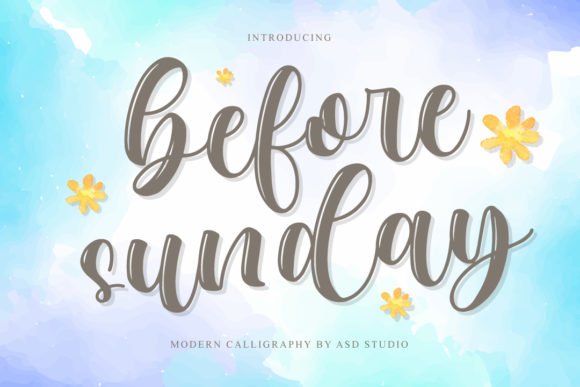
The Timeless Charm of Before Sunday Font
Have you ever stumbled upon a handwritten note from a loved one, and suddenly, you’re transported to a world of memories and emotions? That’s the magic of handwritten fonts, and for designers, it’s a game-changer. Whether you’re crafting a wedding invitation or a heartfelt thank-you card, the right font can make all the difference.
That’s where Before Sunday Font comes in – a delicate, timeless, and incredibly distinct handwritten font that’s perfect for adding a personal touch to your designs. With its elegant script and subtle flair, Before Sunday Font is a designer’s dream come true. Whether you’re working on a logo, business card, or greeting card, this font is sure to elevate your design and leave a lasting impression.
Before Sunday Font is more than just a font – it’s a tool for creating meaningful connections and telling stories through design. And for designers, its value lies in its versatility and timeless charm, making it a valuable addition to any design toolkit.
Before Sunday Font Key Features
- Unique Characteristics: The font features a unique, hand-drawn aesthetic with subtle texture and imperfections, giving it a distinctive, human touch
- Kerning and Ligatures: Before Sunday Font includes advanced kerning and ligature pairs, ensuring smooth and harmonious text rendering
Before Sunday Font Review
I recently had the chance to work with the Before Sunday Font, and I must say it’s an interesting addition to my design toolbox. ✨ Here are a few things that I think work well:
- Unique aesthetic: The Before Sunday Font has a distinct, vintage feel that can add a lot of character to designs.
- High-quality rendering: The font is well-rendered, with clear lines and smooth curves.
- Good for creative projects: I think the Before Sunday Font would be a great choice for projects that require a more artistic or emotive feel.
- Not suitable for body text: While the font is great for headings or titles, I wouldn’t recommend using it for large blocks of body text due to its smaller x-height and more open letterforms.
- Limited language support: Before Sunday Font may not have the same level of language support as more popular fonts, which could be a concern for international designs.
Overall, I think the Before Sunday Font is a great choice for designers looking to add some personality to their projects. While it may not be the most versatile font, it’s definitely worth considering for creative projects where a unique aesthetic is key.
Tips for Getting the Most Out of Before Sunday Font
Before Sunday Font is a versatile font that works well for a variety of designs, from invitations to digital products. To get the most out of it:
- Use it for headings and titles to add a touch of elegance.
- Pair it with a sans-serif font for a modern look.
Before Sunday Font is commonly used for:
- Invitations and event materials.
- Digital products, such as ebooks and courses.